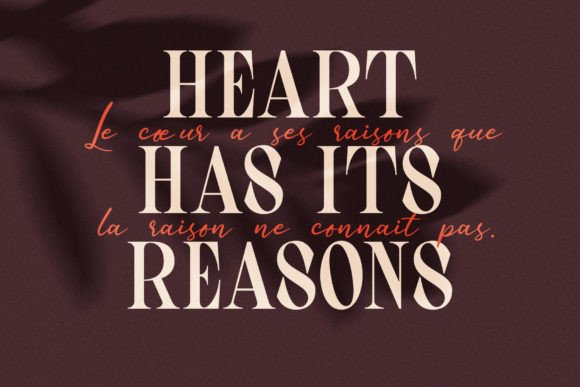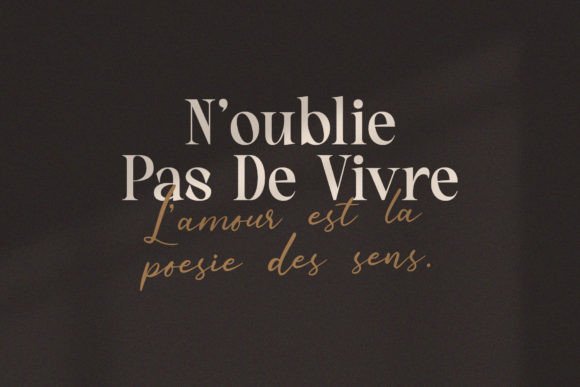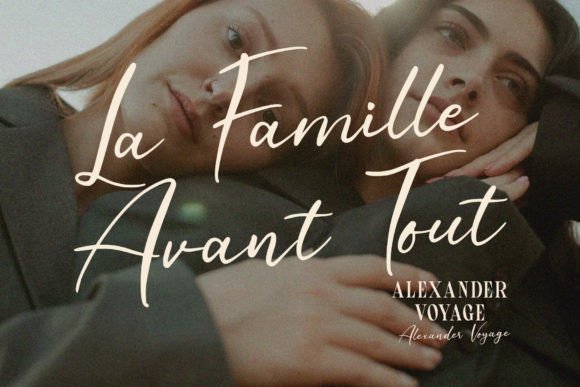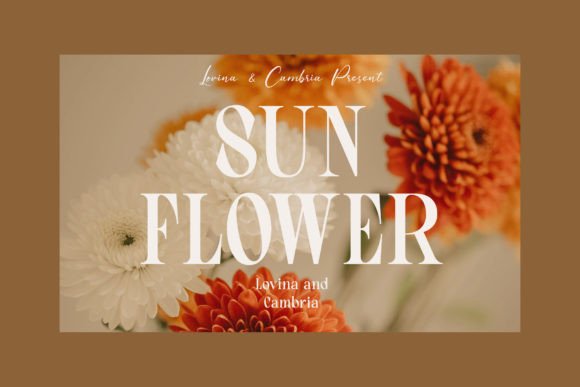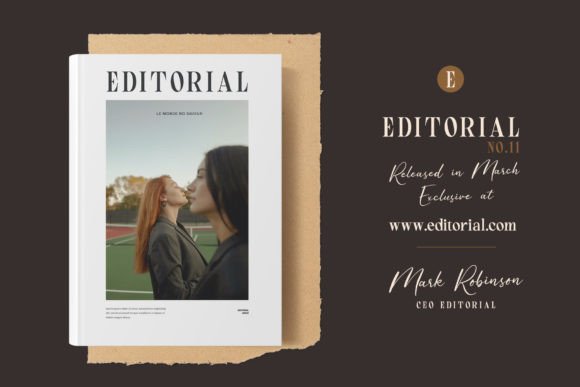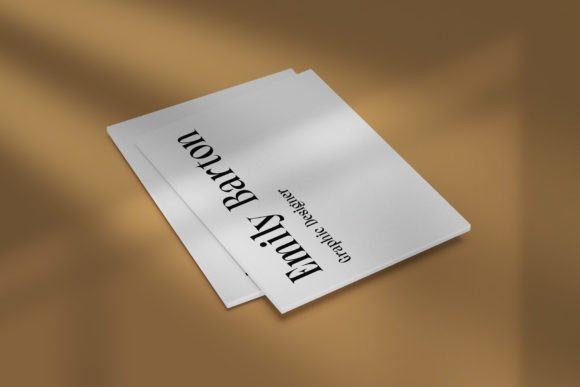
Introduction to Glutern Font
Have you ever been stuck on a creative project, staring at a blank canvas or screen, desperately searching for the perfect font combination to bring your design to life? I’m sure many designers can relate to that frustrating feeling. But what if I told you that there’s a solution that can elevate your design to new heights, giving it a touch of luxury and sophistication? Enter the Glutern Font, a sophisticated and elegant font combination that’s about to become your new best friend.
The Glutern Font is a game-changer for designers who want to create high-quality designs with a transparent background. This beautiful font combination is perfect for any creative project, from branding and marketing materials to websites and publications. With its classic serif font and stylish script font, the Glutern Font offers a harmonious combination that’s both stylish and functional, making it a valuable resource for designers of all levels.
- The font’s unique, modern design makes it perfect for creative projects, from logos and branding to packaging and advertising.
- Glutern Font is a versatile design resource that can be used in a wide range of creative projects, from business cards to websites and social media graphics.
As a designer, I’m always on the lookout for high-quality design resources that can elevate my creative projects. The Glutern Font is one such find that I’m excited to share with you.
What works well: ✨ The Glutern Font is incredibly versatile and can be used for a variety of projects, from corporate branding to editorial design. Its clean and modern aesthetic makes it a great choice for creating a cohesive visual identity. The font is also highly legible, making it perfect for body text.
However, I do have to mention a few limitations: ⚠️ The font may not be suitable for projects that require a lot of bold or dramatic typography. Additionally, some users may find the font’s minimalist design a bit too simple.
Overall, I’m really impressed with the Glutern Font. Its high quality and versatility make it a valuable addition to any designer’s toolkit. Whether you’re working on a personal project or a commercial design, the Glutern Font is definitely worth checking out.
- Highly legible and versatile
- Clean and modern aesthetic
The Glutern Font is ideal for creative projects, such as graphic design, digital art, and web design. Its high-quality features and transparent background make it a popular choice among designers.